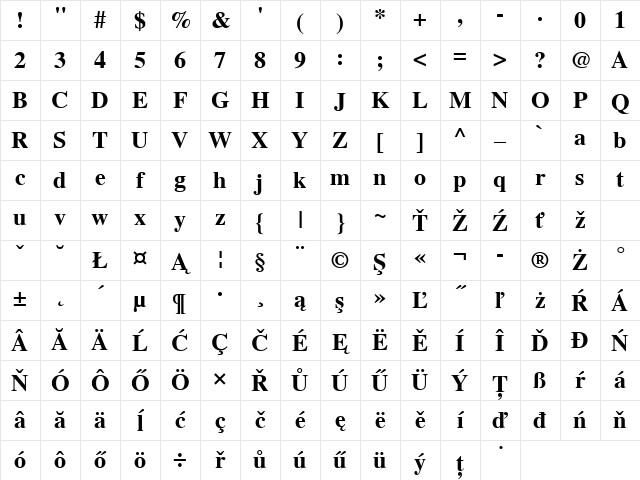
NimbusRomNo9LEE Bold
NimbusRomNo9LEE Family
NimbusRomNo9LEE Bold
Design Context for NimbusRomNo9LEE
NimbusRomNo9LEE is a composed and adaptable typeface that performs quietly and consistently across a wide range of design contexts. Its bold stroke weight gives it real presence on the page.